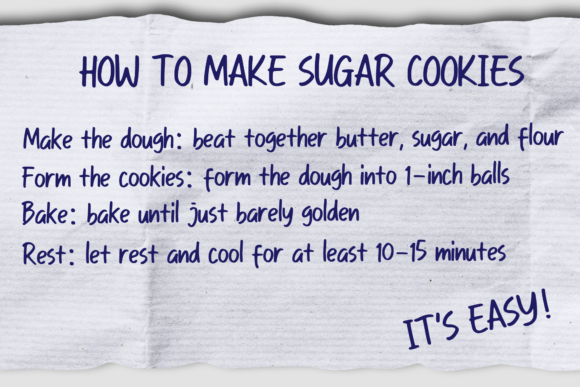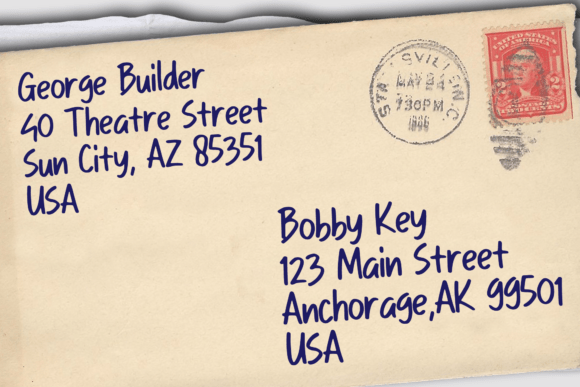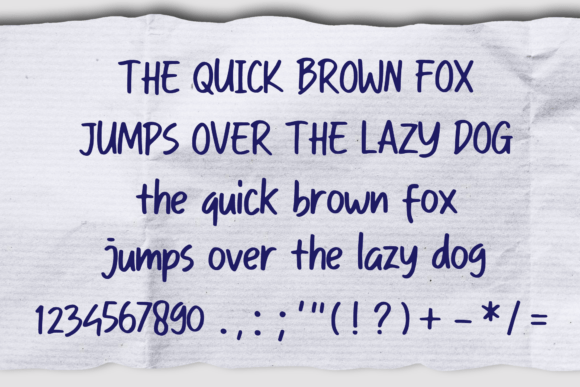
Introduction to Rejoiceful Biro Font
Remember that moment when you finally found the perfect font to bring your creative project to life? The excitement, the thrill, the sense of accomplishment? For designers, that moment is what makes all the hard work worth it. And today, we’re excited to share with you a game-changer in the world of fonts: the Rejoiceful Biro Font.
This playful and fun font is designed for everyday use and is perfect for a wide range of design projects. From stickers and t-shirt designs to logo designs, magazine covers, and comics, the Rejoiceful Biro Font will add a super cool touch to your designs. With its high-quality design and transparent background, this font is a valuable resource for any designer looking to elevate their creative project to the next level.
Key Features of Rejoiceful Biro Font
- Unique, modern font style with a transparent background, ideal for graphic designers and artists.
- Features a large character set, including uppercase and lowercase letters, numbers, and punctuation marks.
- Designed to be highly legible, making it perfect for use in a variety of creative projects, from print to digital media.
Honest Review: Rejoiceful Biro Font
As a designer, I’m always on the lookout for high-quality fonts to elevate my creative projects. The Rejoiceful Biro Font is one such design resource that caught my attention, and I’m excited to share my honest review.
- ✨ The Rejoiceful Biro Font offers a unique and playful aesthetic that’s perfect for adding a touch of whimsy to your designs.
- ✨ The high-quality design ensures that the font looks great on both light and dark backgrounds, and even has a transparent background option for added flexibility.
- ⚠️ The font may not be suitable for all types of projects, particularly those requiring a more formal or professional tone.
- ⚠️ The font’s unique aesthetic may be overwhelming in certain contexts, so it’s essential to use it thoughtfully and in moderation.
Overall, I’m impressed with the Rejoiceful Biro Font, and I think it’s a valuable addition to any designer’s toolkit. With its unique design, high-quality execution, and free download option, it’s a great resource for designers working on creative projects.
Tips for Getting the Most Out of the Rejoiceful Biro Font
To get the most out of the Rejoiceful Biro Font, use it in conjunction with a transparent background to create a unique and eye-catching design. Experiment with different font sizes and styles to add depth and visual interest to your design.
The Rejoiceful Biro Font is perfect for creating eye-catching titles and headings for your creative project. It’s also great for use in brochures, flyers, and business cards where a high-quality font is required.